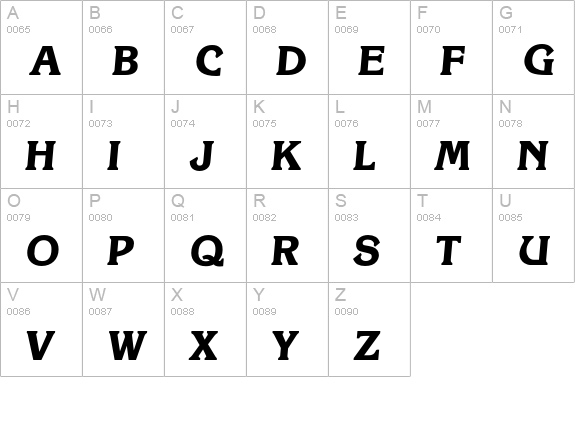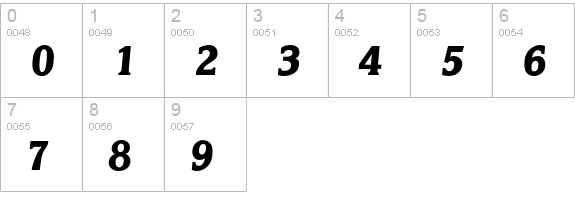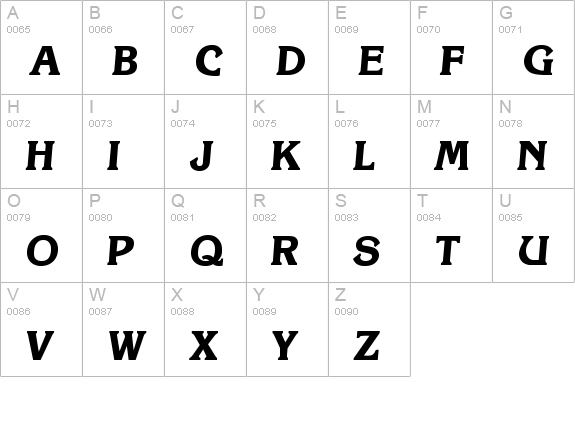
Korinth-BoldIta is a striking and dynamic font that exudes confidence and sophistication. Its bold italic style adds a touch of flair and modernity to any design project. The strong, slanted characters make a bold statement while maintaining a sense of elegance and professionalism. What sets Korinth-BoldIta apart is not just its eye-catching design, but also the fact that it is available for free download at FontsMarket.com. This means that you can easily incorporate this versatile font into your projects without any additional cost. Whether you're working on a branding project, print design, or digital media, Korinth-BoldIta is sure to make a lasting impression. With its sleek curves, sharp angles, and distinctive style, Korinth-BoldIta is a versatile font that can be used in a variety of applications. Whether you're looking to make a statement with your headlines or add a touch of elegance to your body text, this font has you covered. Download Korinth-BoldIta for free today and elevate your designs to the next level.